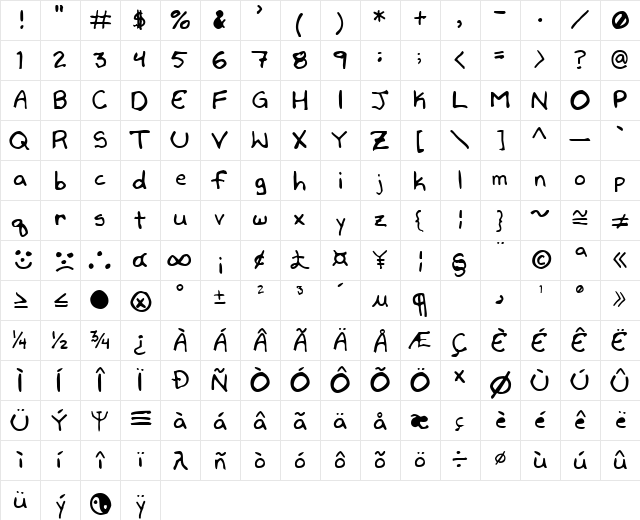
DaveType Handwriting
| Style | Handwriting |
Design Context for DaveType Typeface
DaveType flows with the natural rhythm of handwritten lettering, making it ideal for designs that call for warmth and personal expression.
Font Pairing: Combine DaveType with a simple geometric sans for maximum contrast — the tension between flowing curves and clean structure is a classic typographic pairing.
Pro Tip: Use DaveType for short runs of text — names, titles, or taglines. Extended body copy in script faces tires the eye quickly.